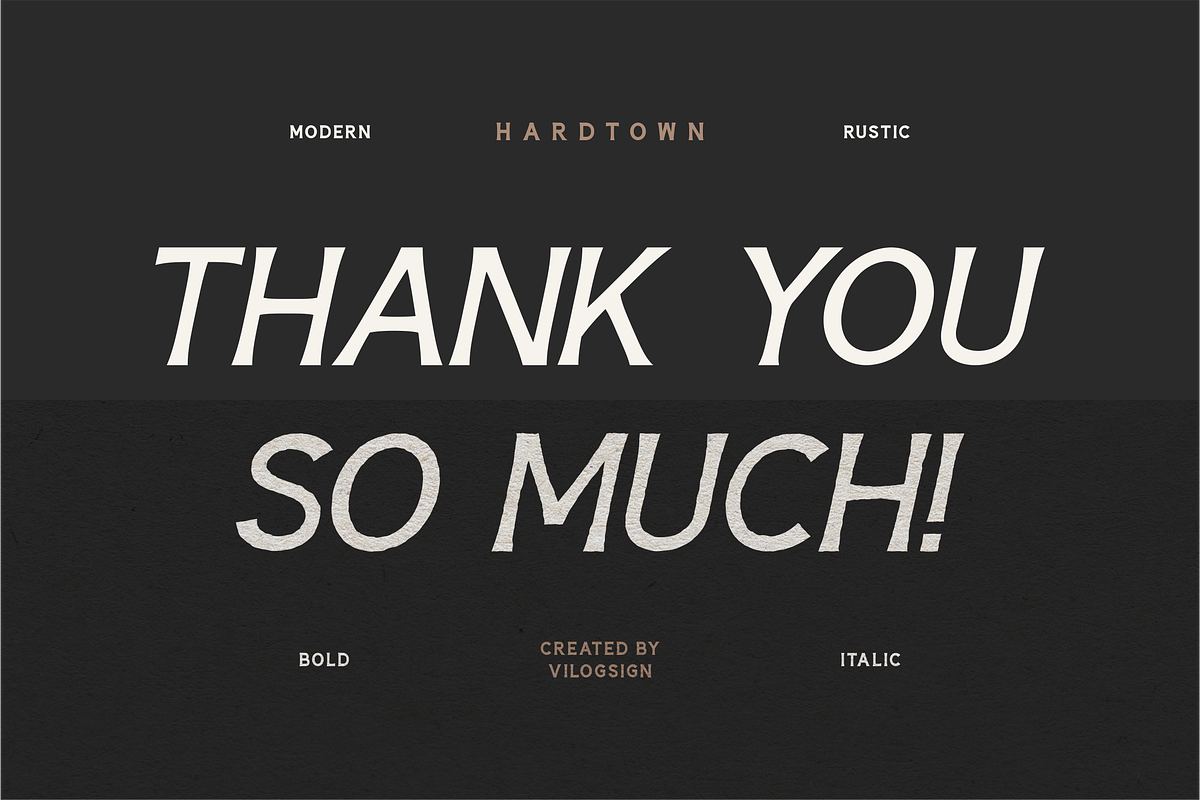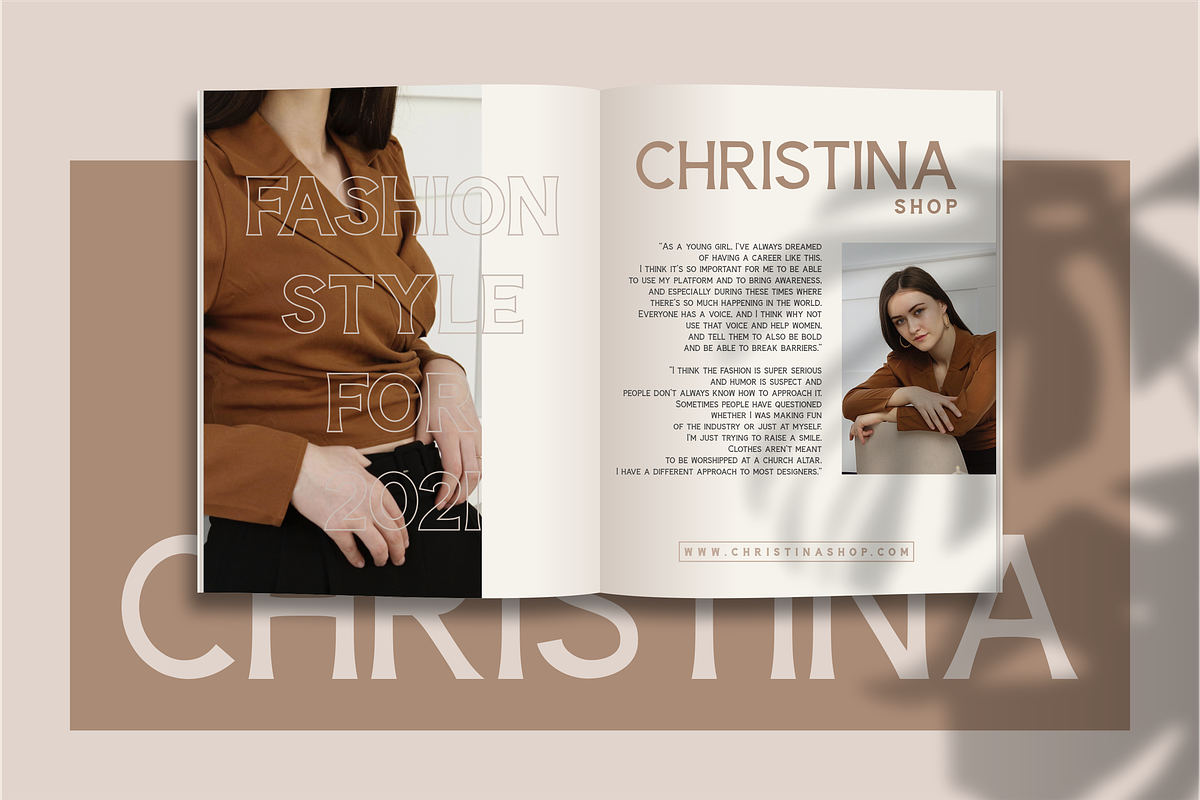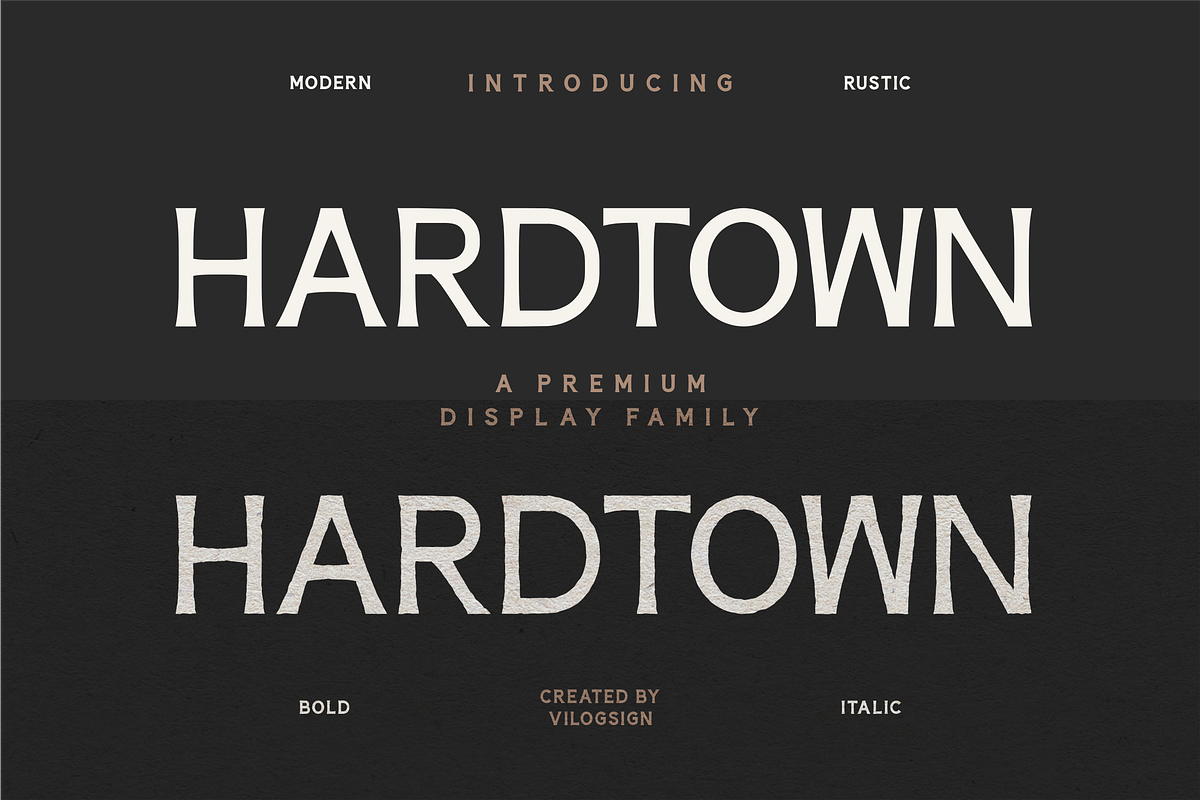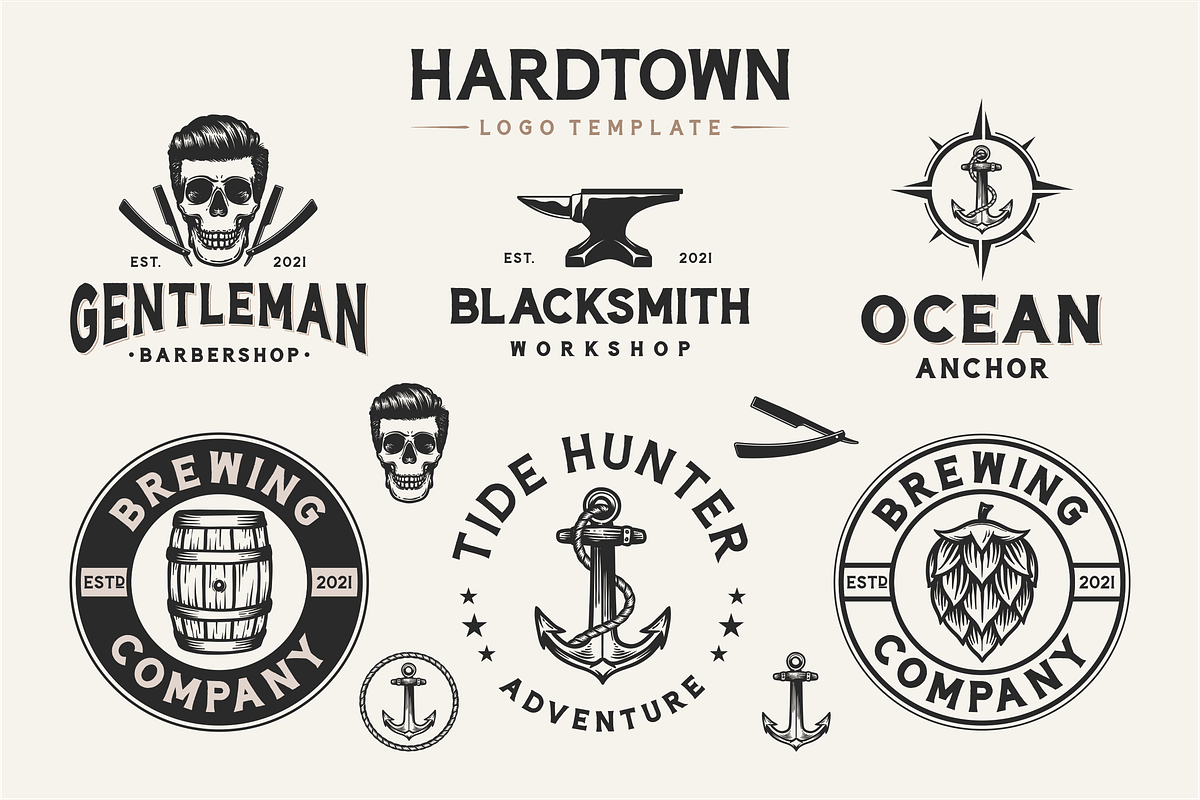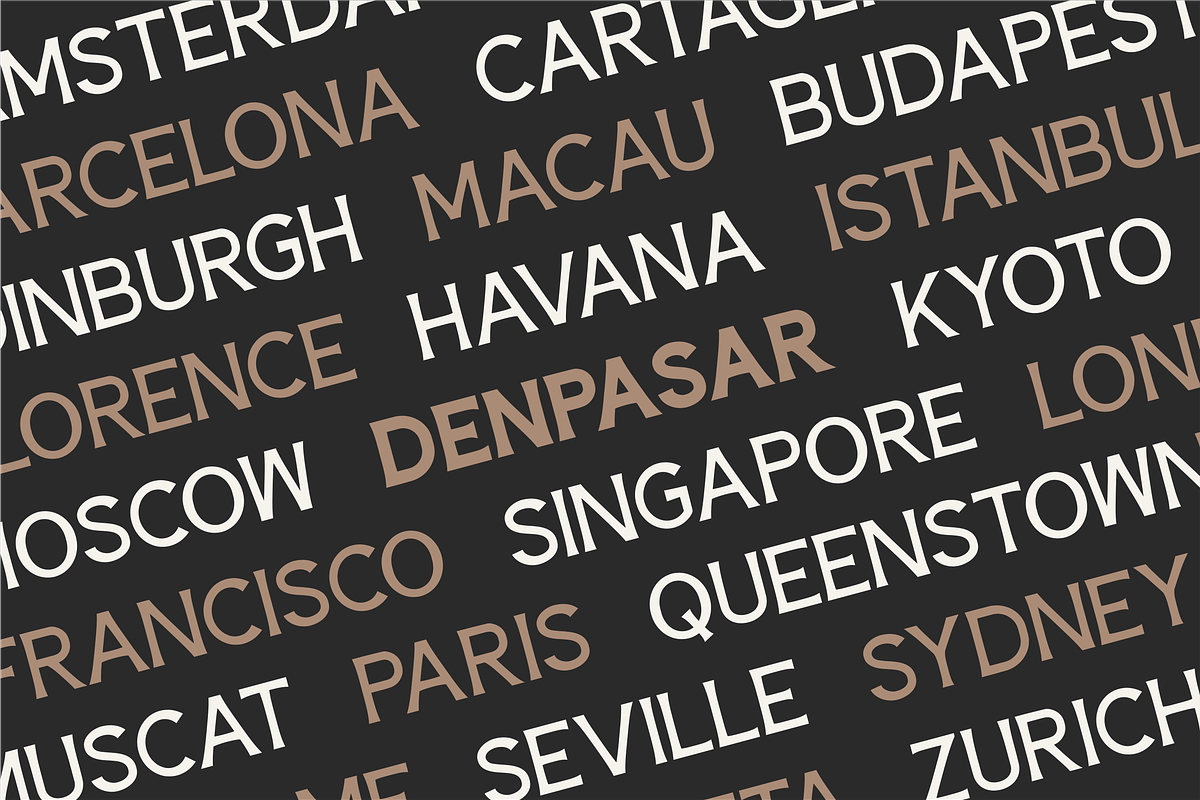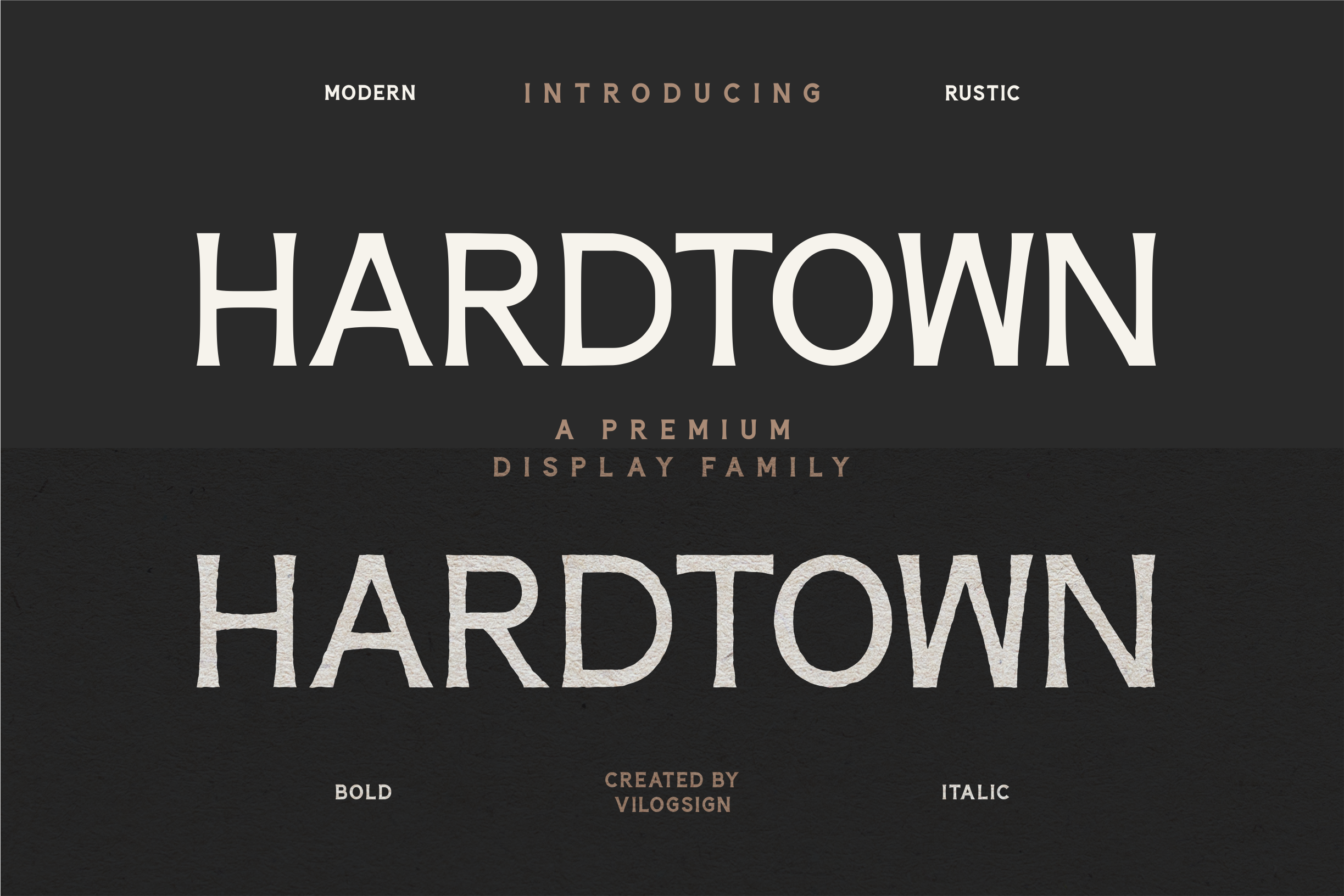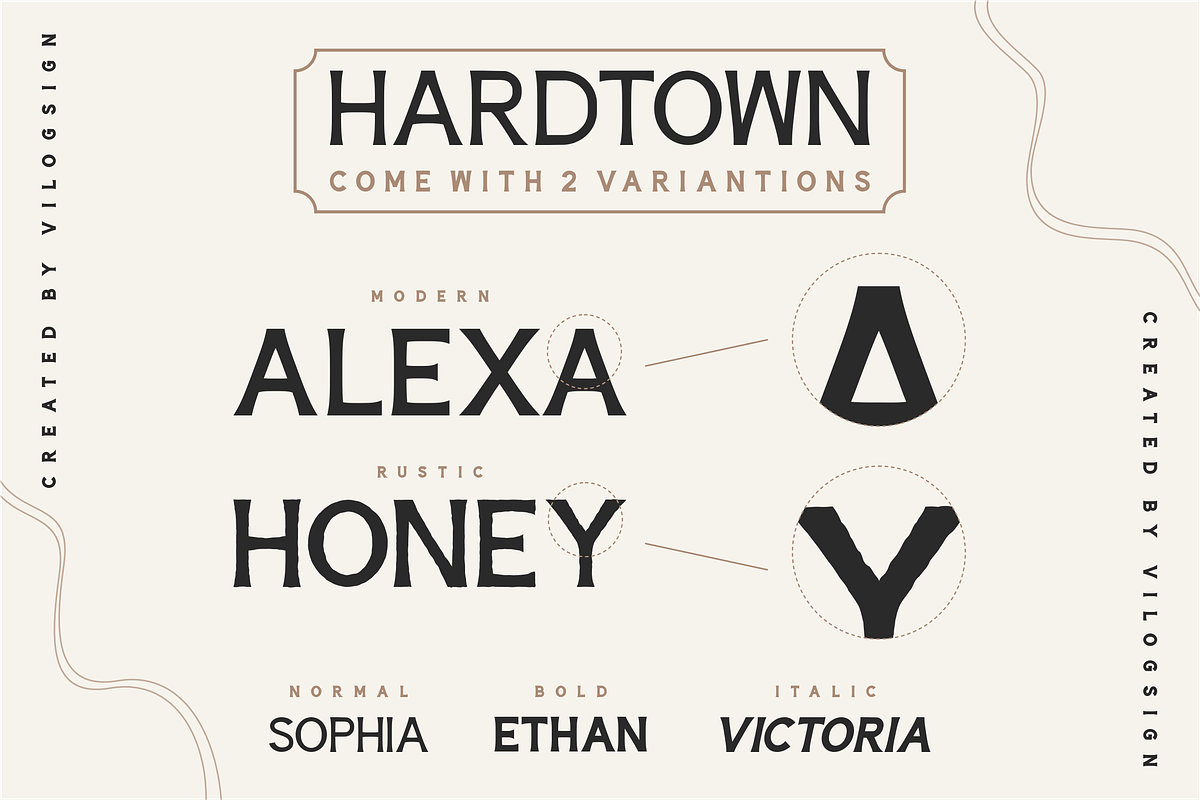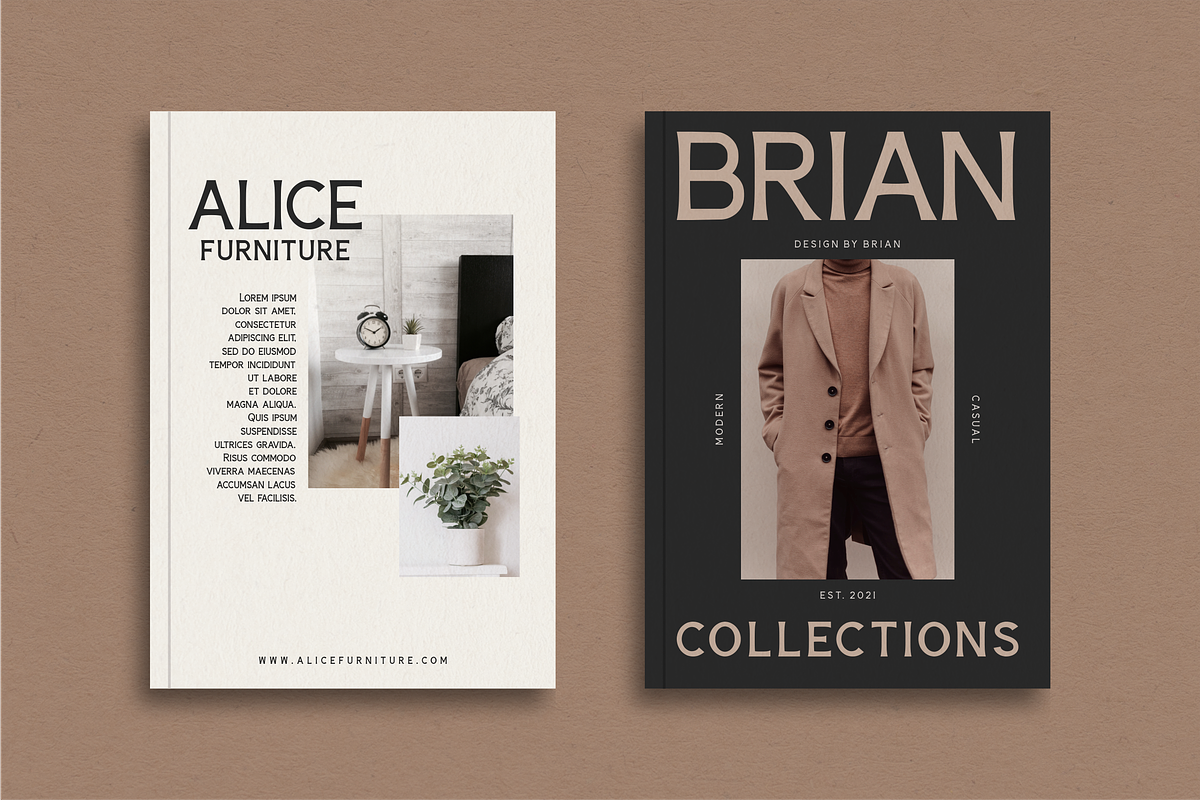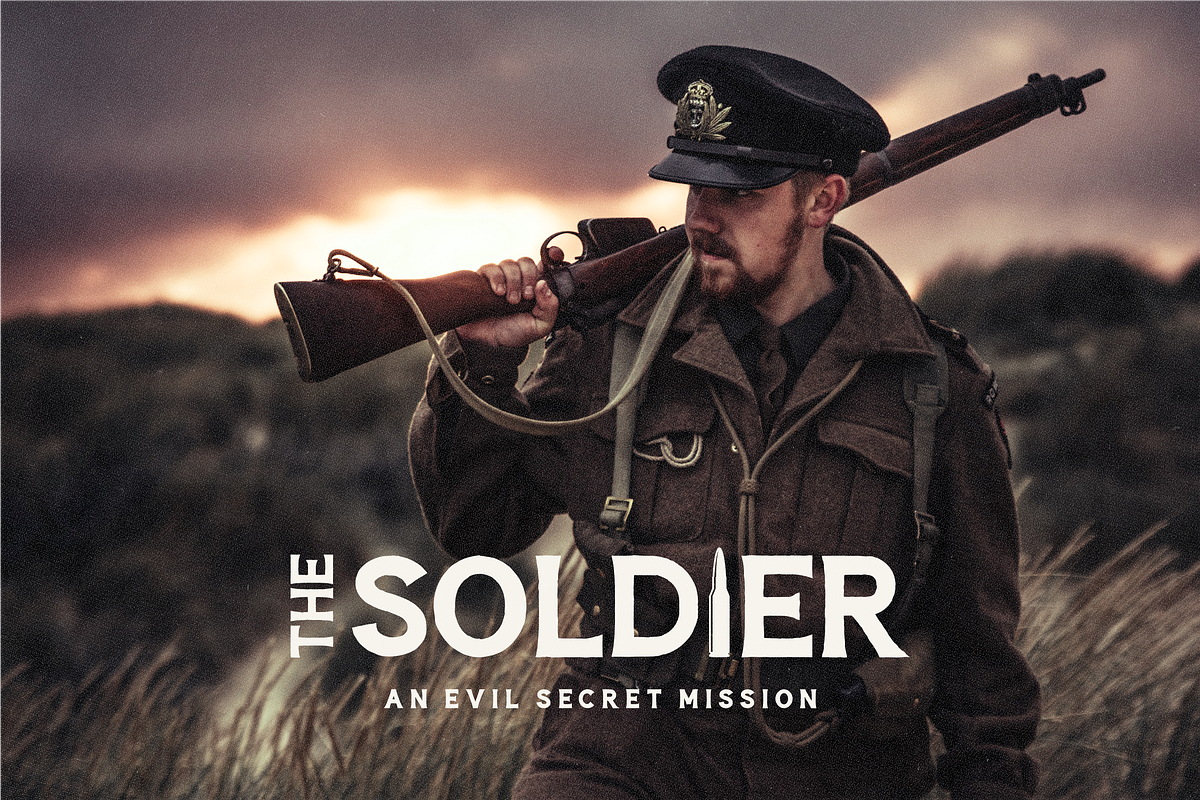
Hardtown a Vintage Sans Serif Font
Hi,,, Introducing "Hardtown" a Sans Serif Font Family!!!
This typeface has been made carefully to make sure its premium quality and luxury feel So perfect for your need. This font is very good with multilingual support and some variations (Rustic, Normal, Bold, and Italic) to complete your need. Very suitable to make a branding, Logo, Poster, Film, magazine, quotes, packaging, and other.